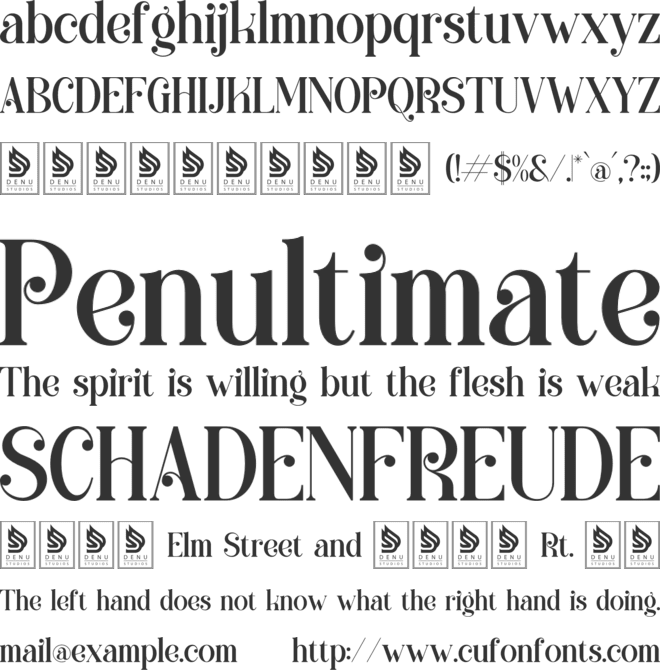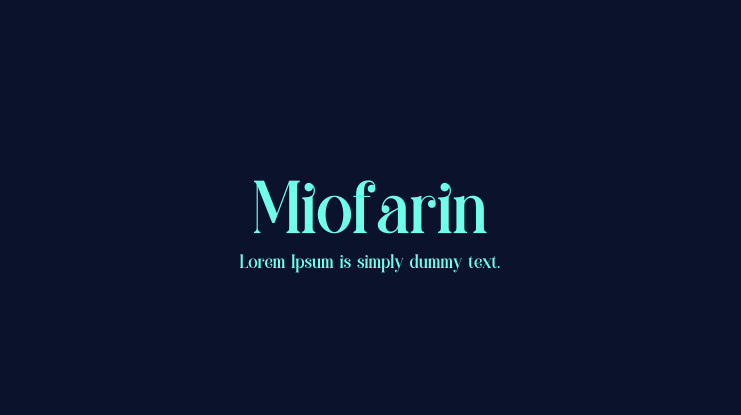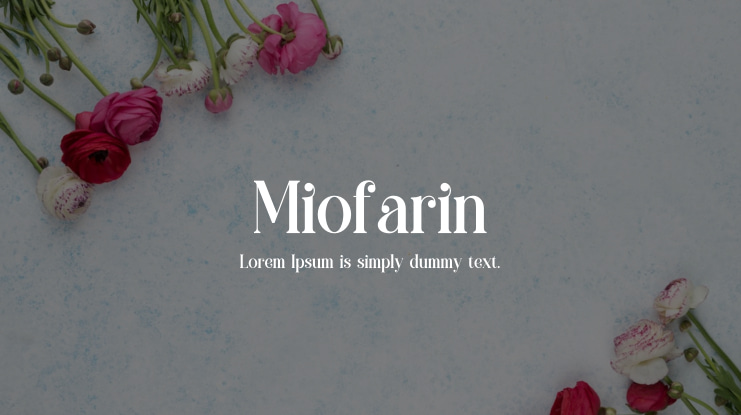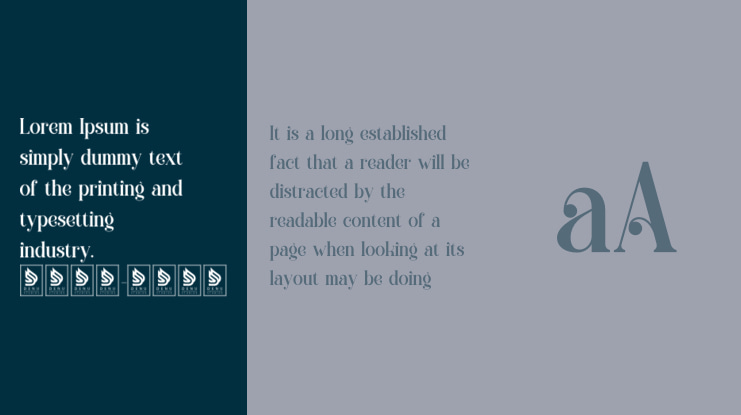
**Miofarin | Display Modern Serif**
The Miofarin Display Modern Serif font is ideal for a variety of projects, including logos, branding, homeware designs, product packaging, mugs, quotes, posters, shopping bags, t-shirts, book covers, name cards, invitation cards, greeting cards, labels, photography, watermarks, special events, and other creative endeavors needing a Display Modern Serif style.